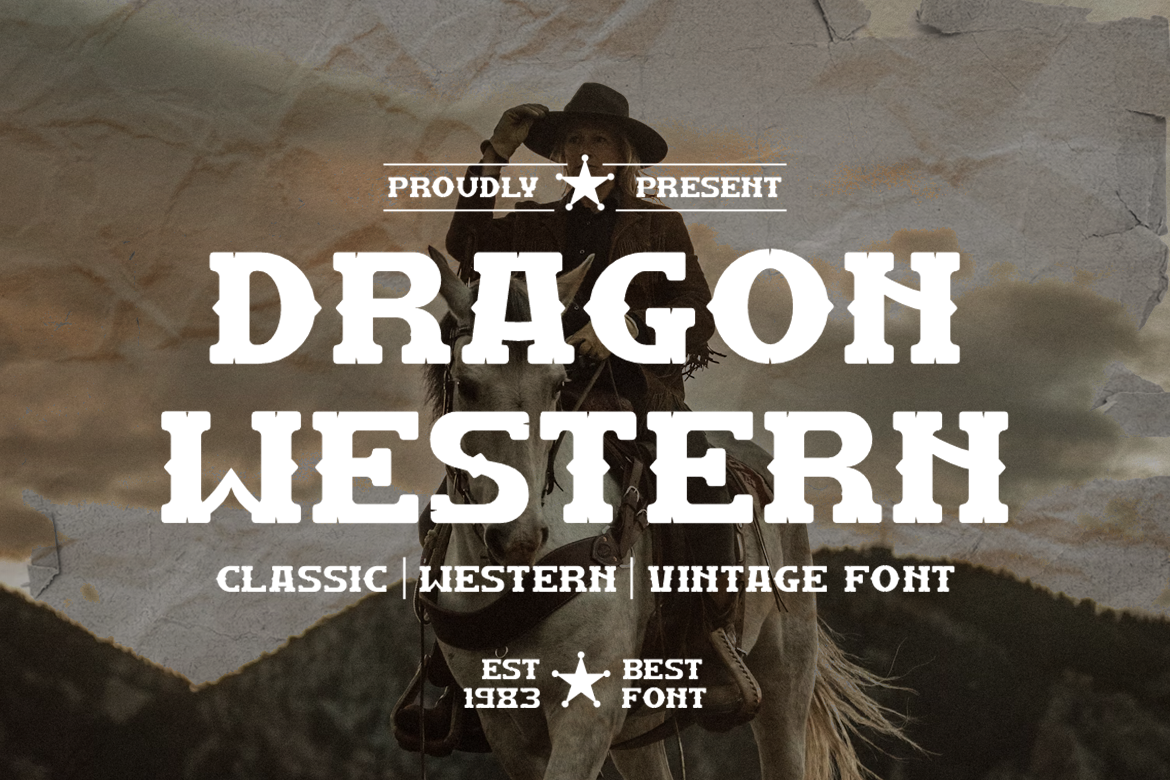
Dragon Western - Vintage & Typeface
Dragon Western - Vintage & Typeface Font is a bold and authentic display font. The font is suitable for any branding project like poster, logo, sport, and many more. Outstanding in a wide range of contexts.